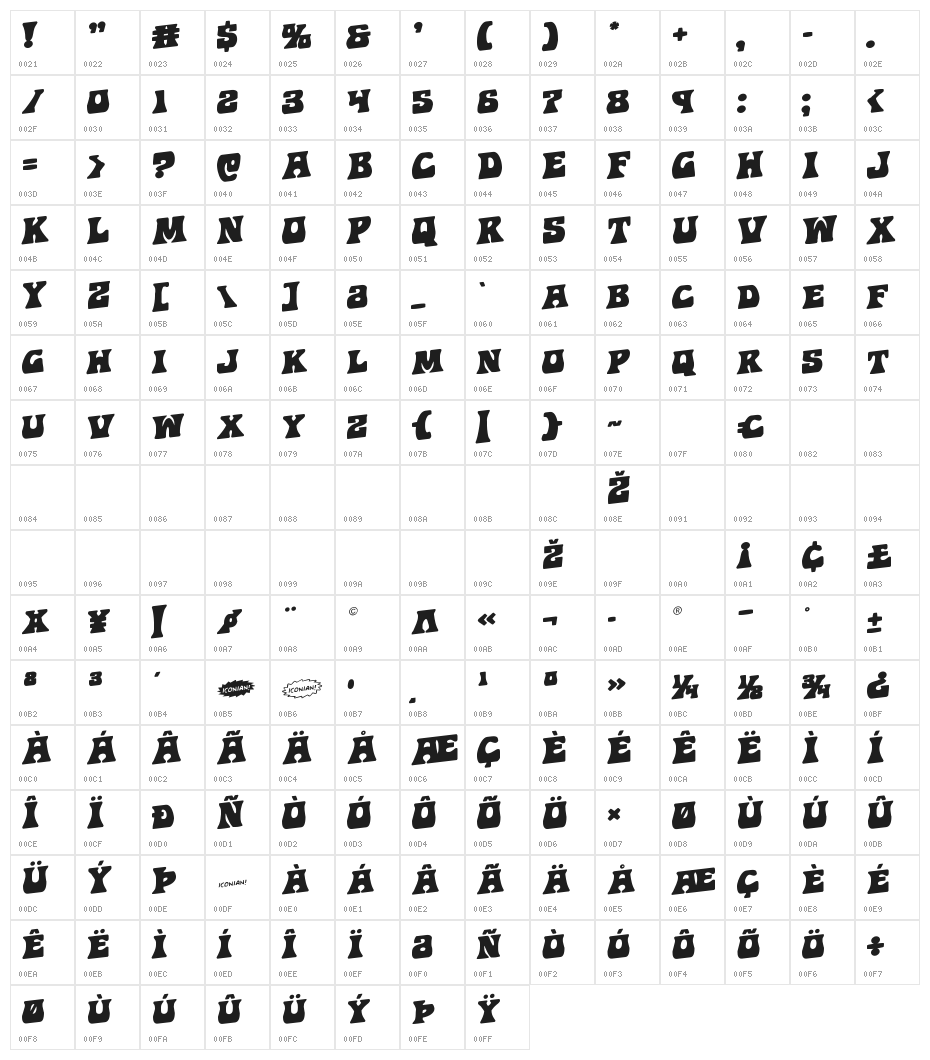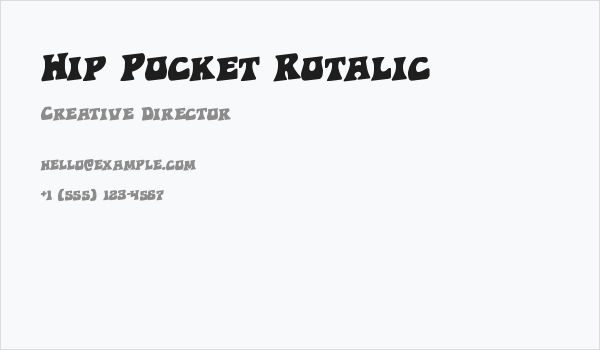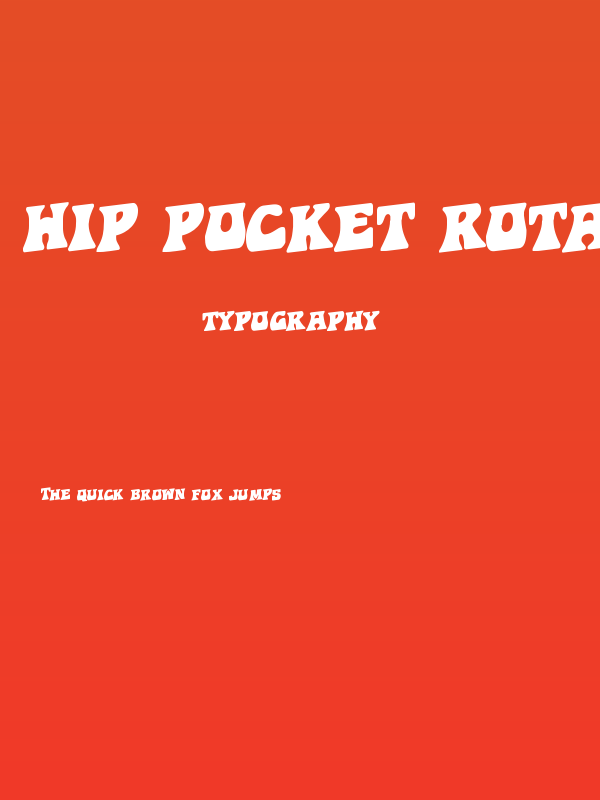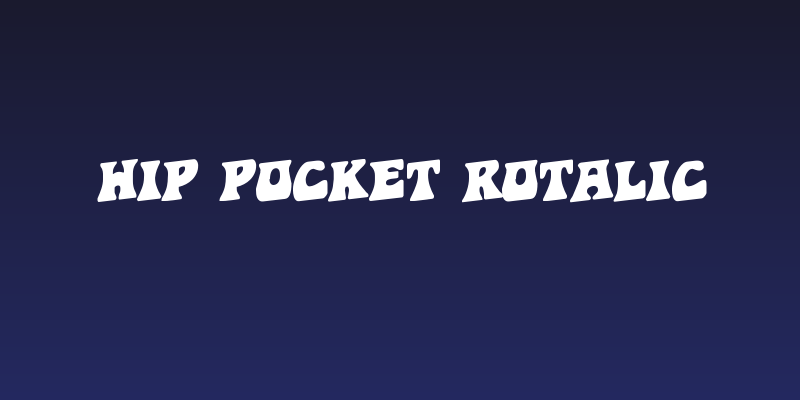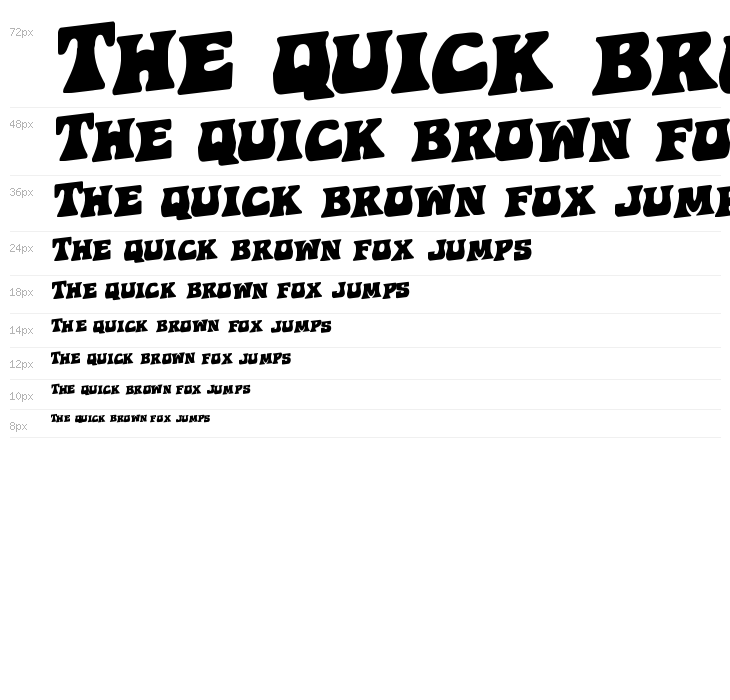
Hip Pocket Rotalic Font
Hip Pocket Rotalic Description
This font features a bold and dynamic style with a playful, retro vibe. The characters are heavily weighted with a slight slant, giving them a sense of movement and energy. The strokes are thick and rounded, creating a soft yet impactful appearance. The overall design is reminiscent of vintage signage or comic book lettering, making it stand out with its unique flair. The uppercase and lowercase letters maintain a consistent style, while the numbers and special characters complement the overall aesthetic. This font is perfect for projects that require a bold statement or a touch of nostalgia.
| Proposed Projects | Ideal for vintage posters, comic book covers, retro branding, and playful advertising. |